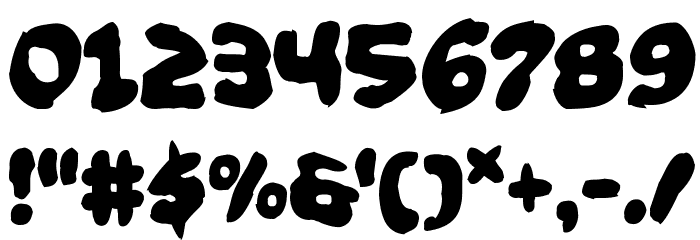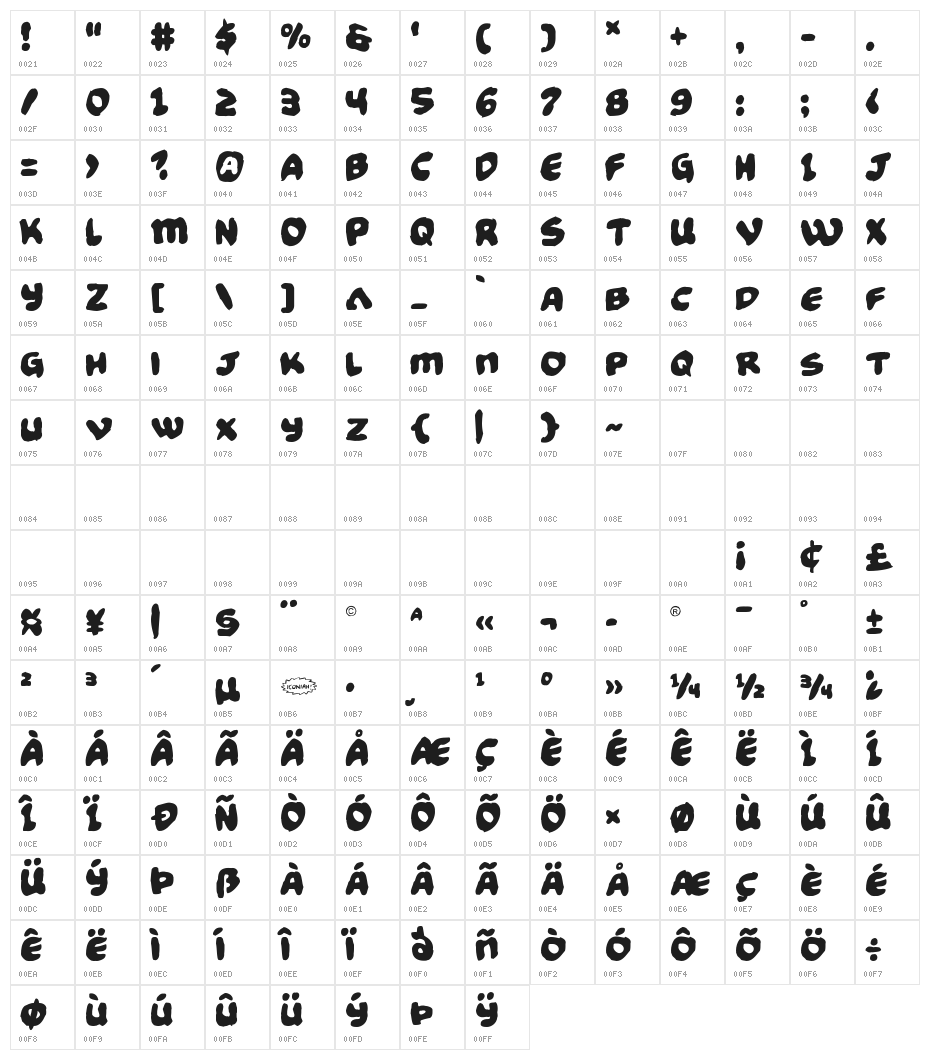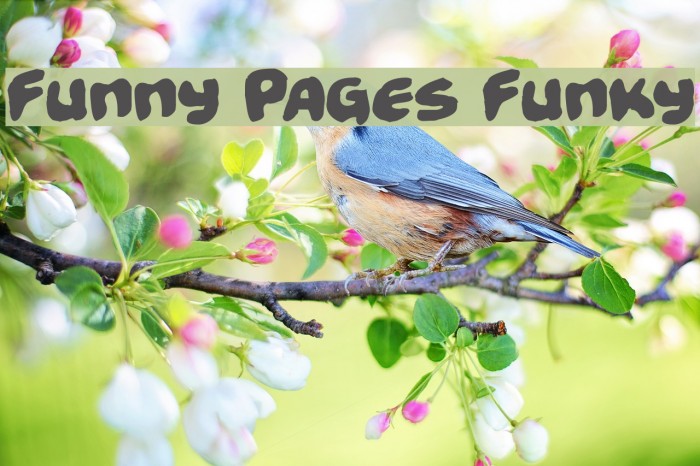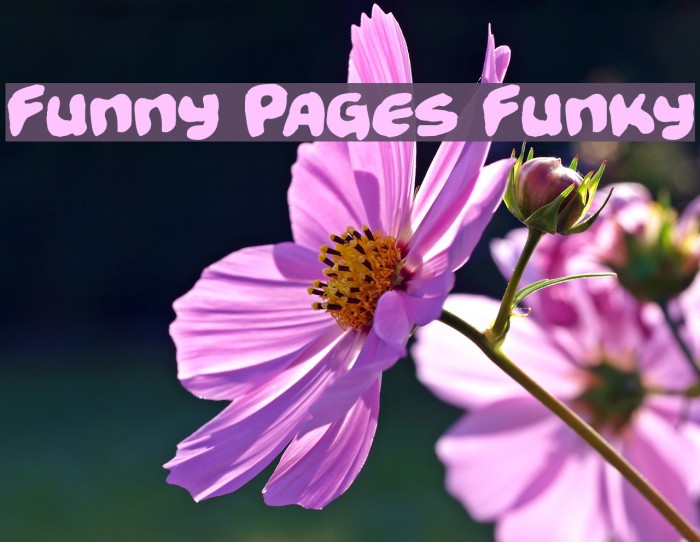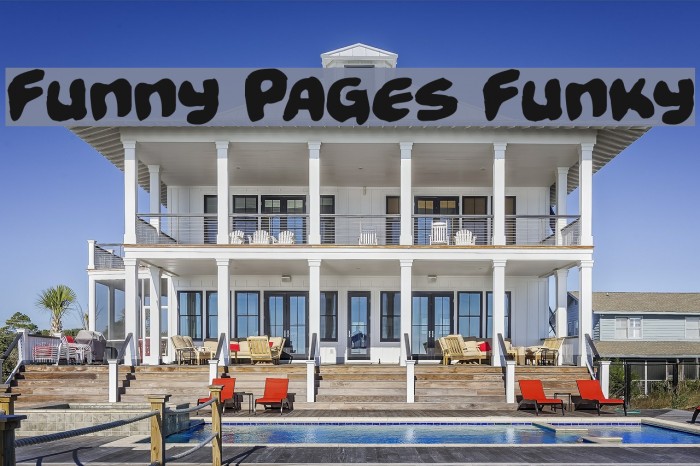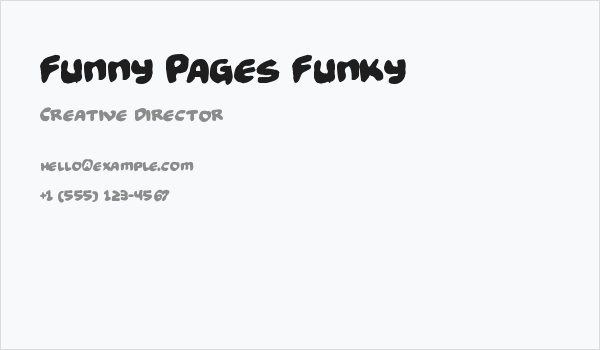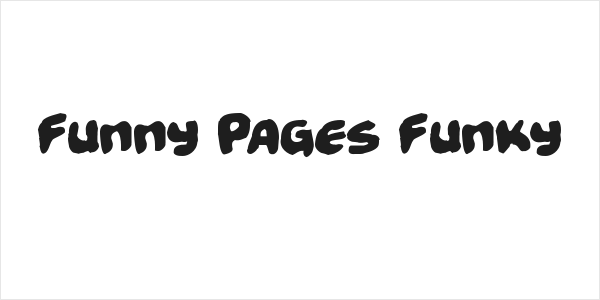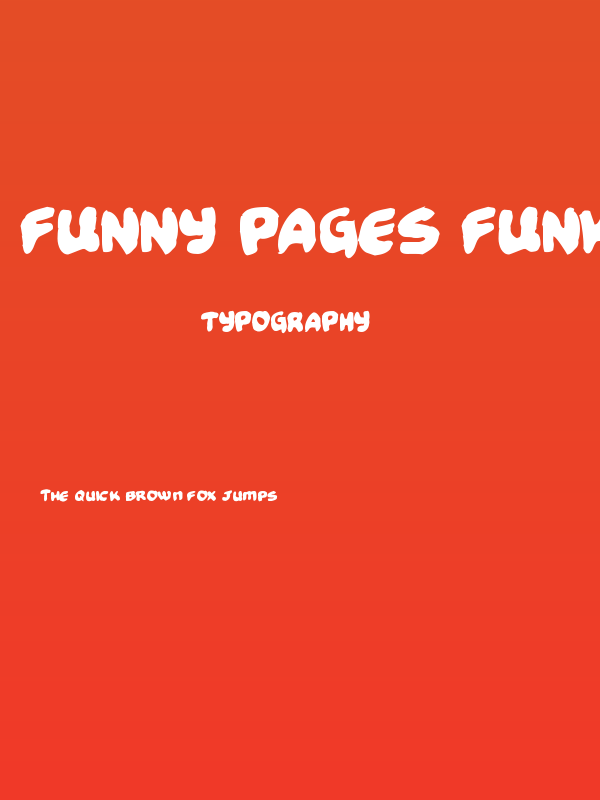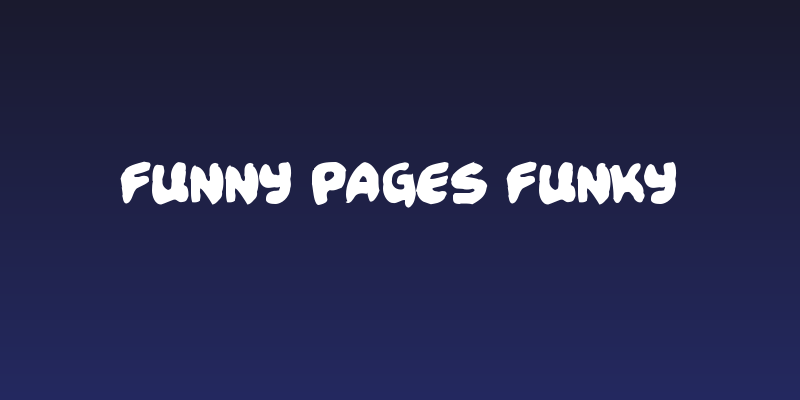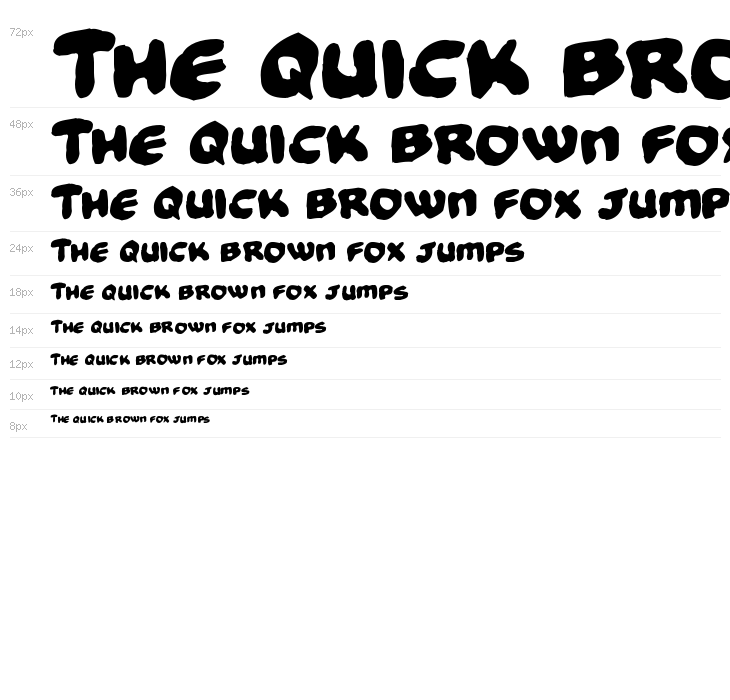
Funny Pages Funky Font
Funny Pages Funky Description
This playful and bold font features a whimsical, cartoonish style with thick, rounded strokes that give it a lively and energetic appearance. The characters are slightly irregular, adding to the font's charm and making it ideal for projects that require a fun and informal touch. The uppercase and lowercase letters maintain a consistent weight, while the numbers and special characters are designed to complement the overall style. Its unique and eye-catching design makes it perfect for creative and playful applications.
| Overall Style | Playful, Cartoonish, Energetic |
| Proposed Projects | Ideal for comic books, children's books, playful branding, posters, and party invitations. |